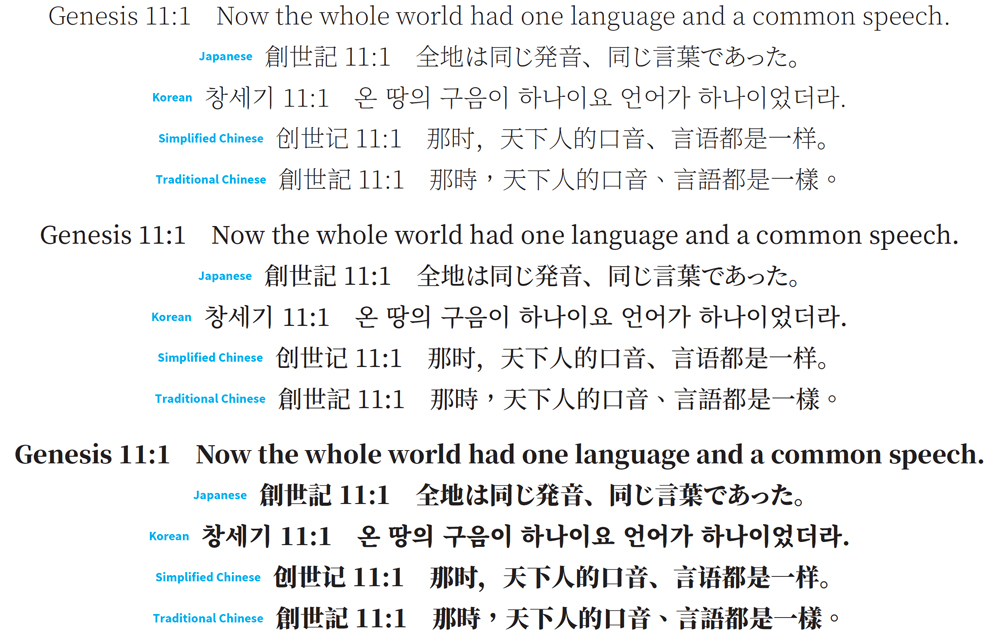
Adobe and Google reveal new unified CJK typeface
Introducing Source Han Serif, the second Pan-CJK typeface family from Adobe Type.
Today, Adobe and Google announced the release of new typeface Source Han Serif, the second Pan-CJK typeface family from Adobe Type, and the serif complement to Source Han Sans.
Developed in response to a need for a unified typeface design to serve the 1.5 billion people in East Asia, the new design looks consistent across four different East Asian languages: Simplified Chinese, Traditional Chinese, Japanese and Korean. The typeface includes 65,535 glyphs in each of its seven weights, and aims to emphasise shared elements between the languages while honouring the diversity of each.
Creating a universal CJK font is no easy feat – it took a wealth of creative talent, including the teams at Adobe and Google, as well as partner foundries Sandoll Communications in Korea, Iwata Corporation in Japan, and Changzhou SinoType in China to complete design work.